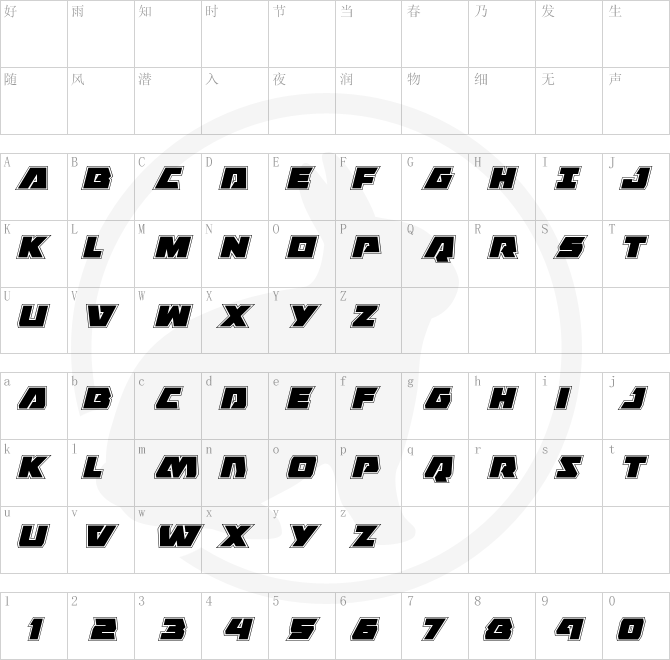
- Font Name:Eagle Strike Academy Italic
Eagle-Strike-Academy-Italic.ttf is a very beautiful artistic font, Eagle-Strike-Academy-Italic.ttf is widely used in the design and printing of various books and pictures,Eagle-Strike-Academy-Italic.ttf has a strong visual impact,Eagle-Strike-Academy-Italic.ttf is a commonly used font in newspapers, magazines and books, and is used in posters, e-commerce Poster design, store design, logo design, font design and other fields.Eagle-Strike-Academy-Italic.